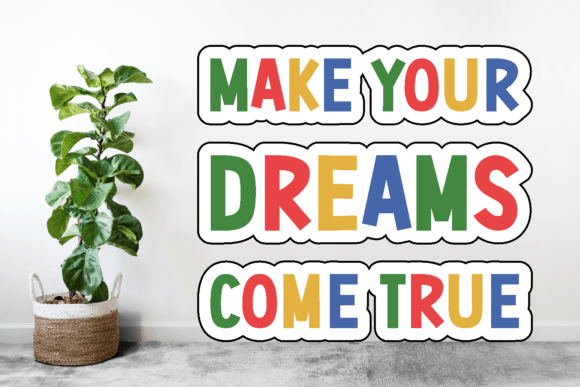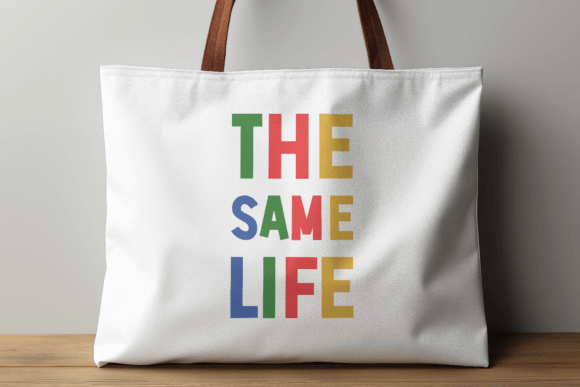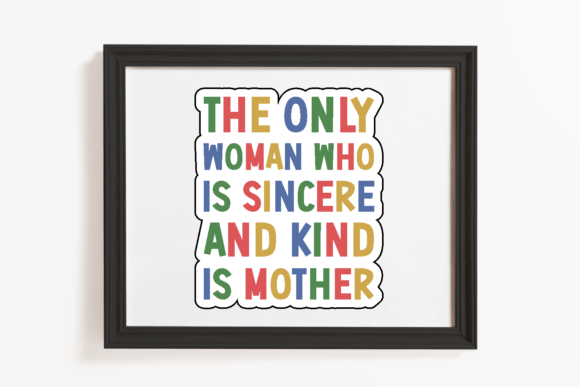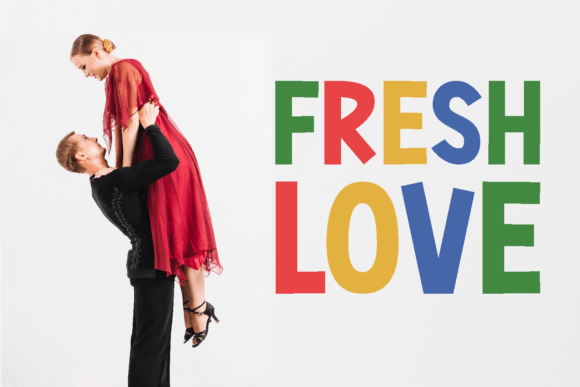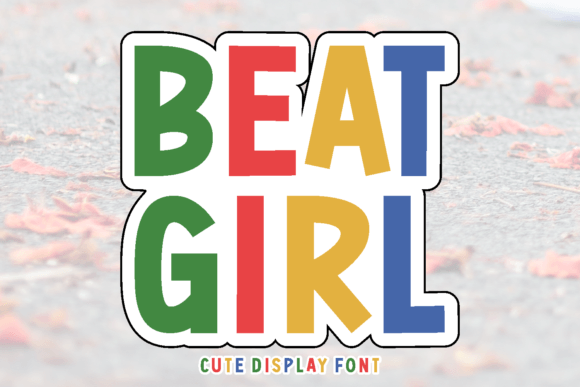
Introducing Beat Girl Font: The Sweet and Friendly Display Font
Are you a designer or crafter looking for a font that can add a touch of sweetness and friendliness to your projects? Look no further than Beat Girl Font! This display font is perfect for a wide range of designs, from creative crafts to digital projects, and its natural and unique style makes it incredibly versatile.
The Characteristics of Beat Girl Font
Beat Girl Font is a sweet and friendly display font that boasts a unique and natural style. Its distinctive characteristics make it an excellent choice for designers and crafters who want to add a personal touch to their projects. Here are some of the key features of Beat Girl Font:
- Unique and Natural Style: Beat Girl Font has a one-of-a-kind style that is both natural and eye-catching. Its unique letterforms and spacing make it perfect for creating visually appealing designs.
- Sweet and Friendly: The font has a sweet and friendly tone that makes it perfect for designs that require a personal touch. Whether you’re creating a logo, a poster, or a digital graphic, Beat Girl Font is sure to add a touch of warmth and approachability.
- Highly Versatile: Beat Girl Font is incredibly versatile and can be used for a wide range of designs, from creative crafts to digital projects. Its flexibility makes it an excellent choice for designers and crafters who want a font that can keep up with their creative vision.
What Can You Use Beat Girl Font For?
The possibilities are endless when it comes to using Beat Girl Font! Its versatility and unique style make it perfect for a wide range of projects, including:
- Creative Crafts: Beat Girl Font is perfect for crafters who want to add a personal touch to their projects. Use it to create handmade cards, scrapbook pages, and other crafty designs.
- Digital Projects: The font is also great for digital projects, such as social media graphics, blog posts, and website designs. Its sweet and friendly tone is sure to engage your audience and add a touch of personality to your digital content.
- Logos and Branding: Beat Girl Font can also be used to create unique and memorable logos and branding materials. Its distinctive style makes it perfect for businesses that want to stand out from the crowd.
Why Choose Beat Girl Font?
There are many fonts available for designers and crafters, but Beat Girl Font stands out from the rest. Here are some reasons why you should choose Beat Girl Font for your next project:
- Unique Style: Beat Girl Font has a unique and natural style that is sure to make your designs stand out.
- High-Quality Design: Beat Girl Font is designed with high-quality and precision, ensuring that your designs look professional and polished.
Tips for Using Beat Girl Font
Here are some tips for using Beat Girl Font to get the most out of this amazing font:
- Experiment with Different Sizes: Beat Girl Font looks great in a variety of sizes, from small and delicate to large and bold. Experiment with different sizes to find the one that works best for your design.
- Pair it with Other Fonts: Beat Girl Font can be paired with other fonts to create a unique and visually appealing design. Try pairing it with a bold font for a striking contrast.
- Use it for Headlines and Titles: Beat Girl Font is perfect for headlines and titles, where its unique style can really shine.
In conclusion, Beat Girl Font is a sweet and friendly display font that is perfect for designers and crafters who want to add a personal touch to their projects. Its unique and natural style makes it incredibly versatile, and its ease of use makes it a great choice for anyone who wants to create beautiful designs. So why wait? Download Beat Girl Font today and let your creativity shine!